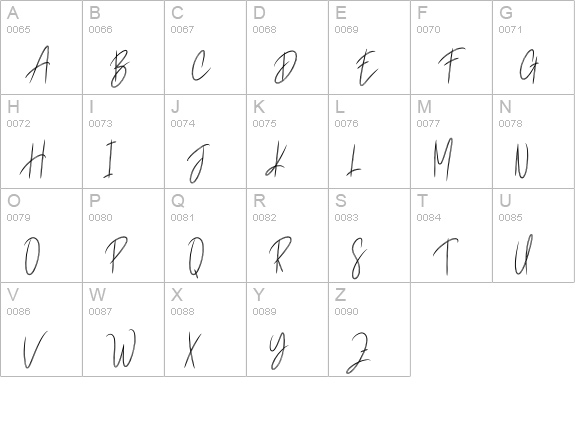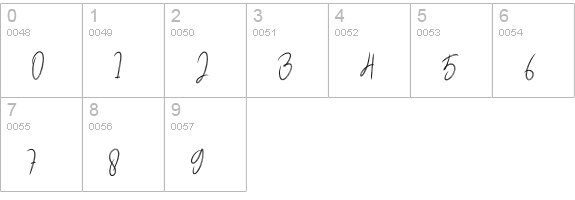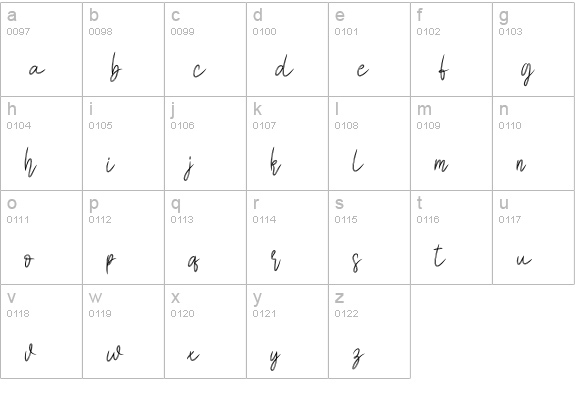
Belginda Font Details
Introducing Belginda, a stunning and versatile font that exudes elegance and sophistication. With its unique combination of modern and classic elements, Belginda is the perfect choice for a wide range of design projects. This font features clean lines, graceful curves, and a timeless appeal that will elevate your creations to the next level.